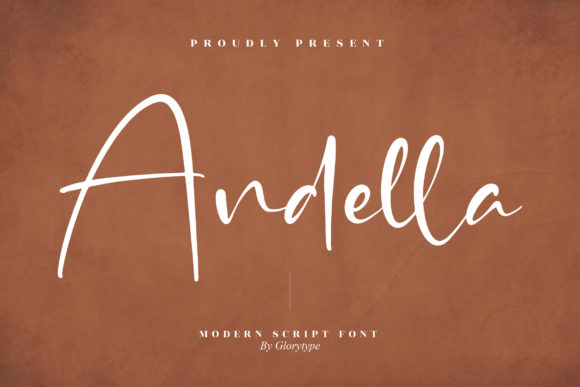
The Elusive Font: My Journey with Andella
I still remember the design project that had me on the hunt for the perfect font. My client wanted a elegant and flowing script to match their brand’s sophisticated vibe. I scoured the internet, tried out dozens of fonts, but nothing seemed quite right. That was until I stumbled upon Andella Font. It was love at first sight! 💕
Andella is a delicate, elegant and flowing handwritten font that has beautiful and well-balanced characters. This makes it match a wide pool of designs, from wedding invitations to branding materials. In this article, I’ll share my experience with Andella, its features, and how to get the most out of it.
An Honest Review of Andella Font
• ✨ Elegant and flowing design: Andella’s script is smooth and beautiful, making it perfect for designs that require a touch of sophistication.
• ✅ PUA encoded: This means you can access all the amazing glyphs and ligatures with ease, giving you more creative freedom.
• 💡 Well-balanced characters: Andella’s characters are designed to work well together, making it easy to create harmonious and visually appealing text.
While Andella is an amazing font, there are a few things to keep in mind:
• ⚠️ Limited use in body text: Due to its elegant and flowing nature, Andella might not be the best choice for long blocks of body text. It’s better suited for headings, titles, or short paragraphs.
• 🤔 Requires some practice to master: Andella’s script can be a bit tricky to work with, especially if you’re new to using handwritten fonts. Take some time to experiment and get familiar with its features.
The Story Behind Andella
Andella was designed with the intention of creating a elegant and flowing script font that would be perfect for designs that require a touch of sophistication. The designer aimed to create a font that would be both beautiful and functional, with a focus on well-balanced characters and elegant lines.
A: PUA (Private Use Area) encoding is a way of encoding fonts that allows for the use of special characters and glyphs. In the case of Andella, PUA encoding enables you to access all the amazing glyphs and ligatures with ease.
Q: Is Andella suitable for body text?
A: While Andella is a beautiful font, it’s not ideal for long blocks of body text. It’s better suited for headings, titles, or short paragraphs where its elegant and flowing design can shine.